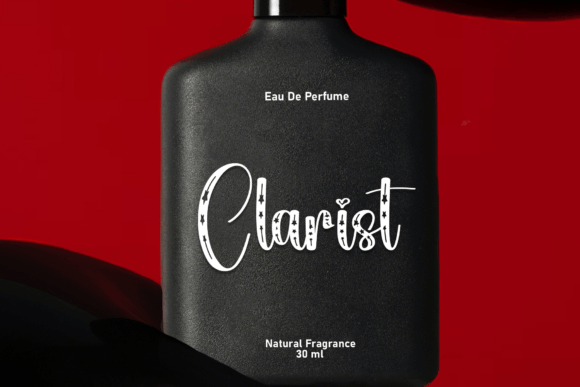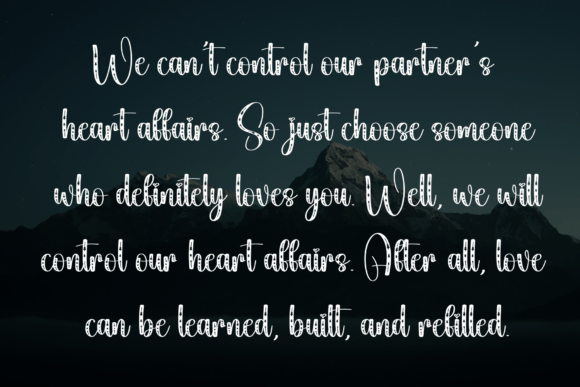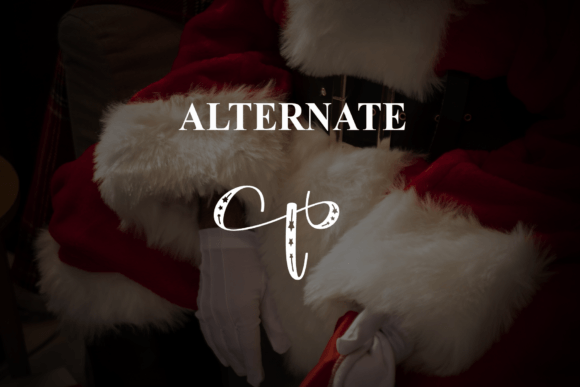
Introduction to Santa Boho Font
Have you ever been working on a creative project, pouring your heart and soul into it, and just can’t seem to find the right font to bring it all together? I know I have! It’s that moment of frustration, staring at a blank screen, wondering why you can’t find the perfect match for your design. But what if I told you that I’ve found a font that’s sure to change that? Enter the charming Santa Boho Font, a sweet and friendly handwritten font that’s perfect for adding a personal touch to your designs.
This unique and natural font is a game-changer for designers, offering endless possibilities for creative projects. With its transparent background and high-quality design, it’s the perfect design resource for any project. Whether you’re working on a graphic design, a digital illustration, or a web design, the Santa Boho Font is sure to bring a touch of magic to your work.
Key Features of Santa Boho Font
- Unique Bohemian-inspired design, perfect for creative projects and free-spirited individuals.
- High-quality font with a transparent background, allowing for seamless integration with various design elements.
- Features a playful, handwritten style that adds a touch of whimsy to any design project, from invitations to social media graphics.
- Designed to be versatile, suitable for a wide range of creative projects, from fashion and lifestyle to music and art.
Honest Review: Santa Boho Font
I recently had the chance to work with the Santa Boho Font, and I must say it’s been a delightful experience. As a designer, I’m always on the lookout for high-quality fonts that can elevate my creative projects.
Here are some things that work well with the Santa Boho Font:
- ✨ Unique and playful design: The font’s bohemian vibe is perfect for adding a touch of whimsy to your design projects.
- ✨ Clear and legible: Even though the font has a decorative feel, it’s still easy to read and understand.
- ✨ Transparent background: This feature allows for seamless integration with transparent backgrounds, giving your designs a polished look.
However, I do have some limitations to note:
- ⚠️ Limited font sizes: The font may not be suitable for larger font sizes, as it can become difficult to read.
- ⚠️ Not ideal for formal projects: The font’s playful design may not be suitable for more formal or professional projects.
Overall, I’m impressed with the Santa Boho Font’s potential for adding a touch of creativity to design projects. While it may have some limitations, it’s definitely a valuable resource for designers looking for a unique and high-quality font.
The Santa Boho Font is ideal for use in various creative projects, such as holiday-themed designs, greeting cards, and party invitations. It’s also suitable for use in branding and marketing materials, such as logos and business cards.